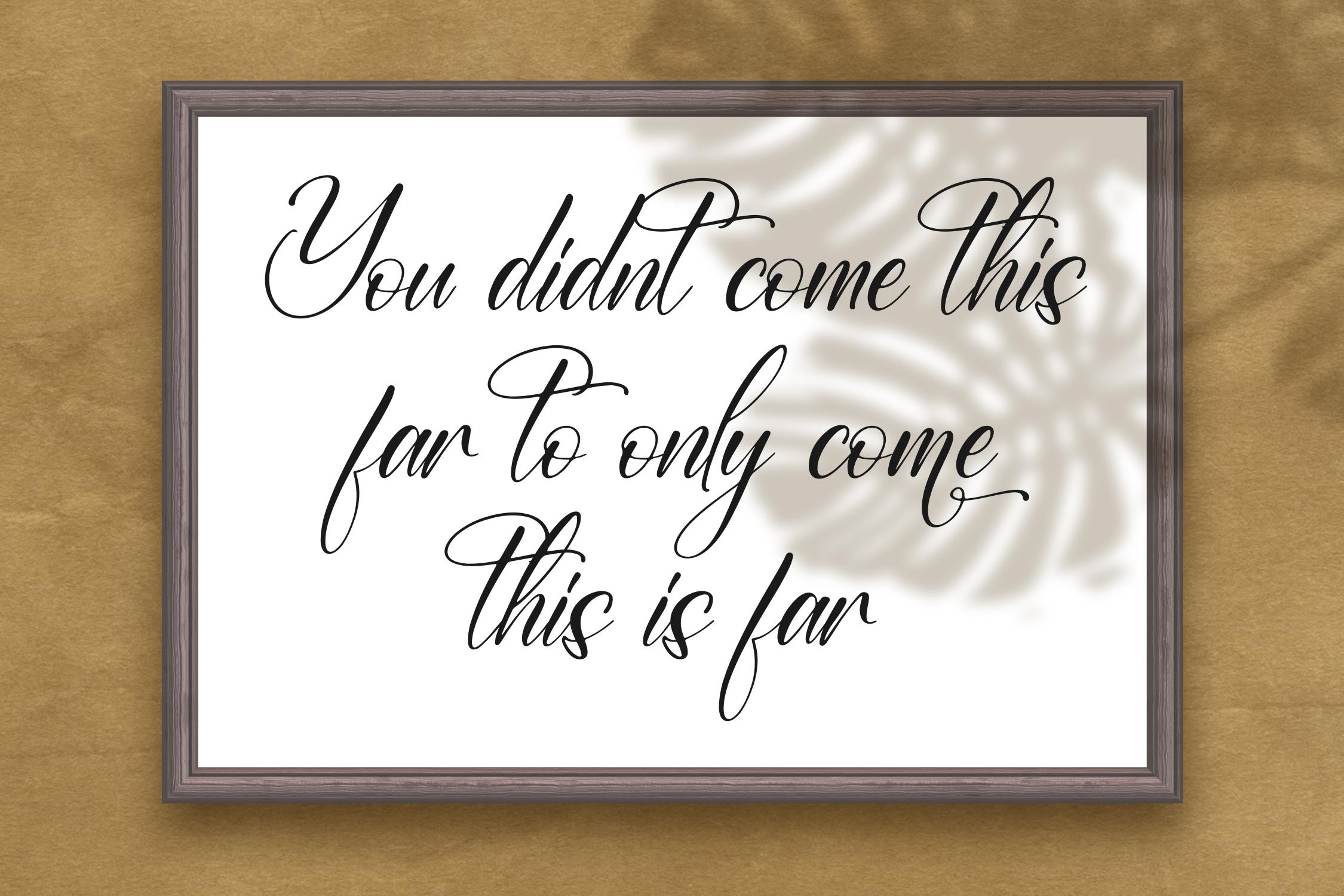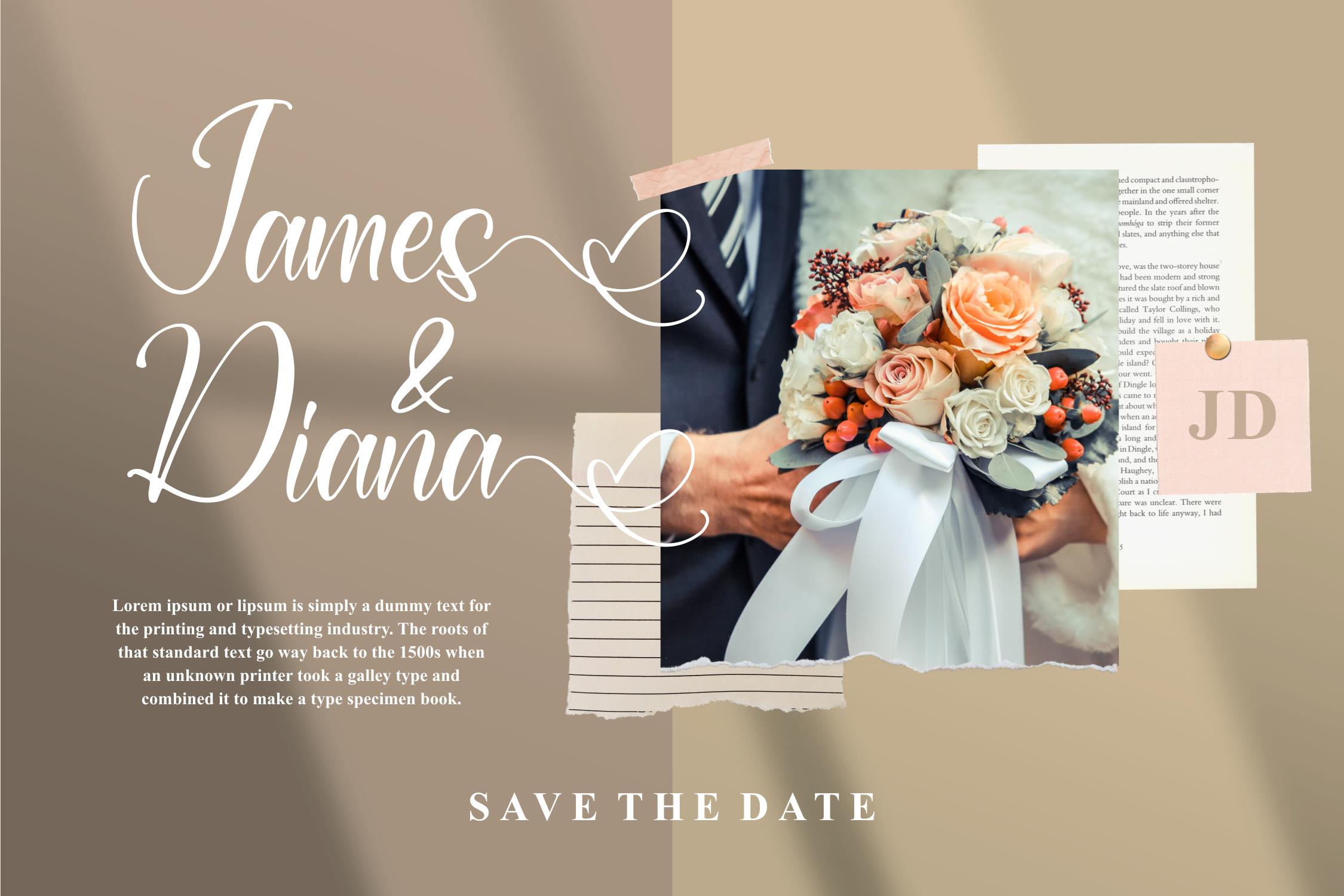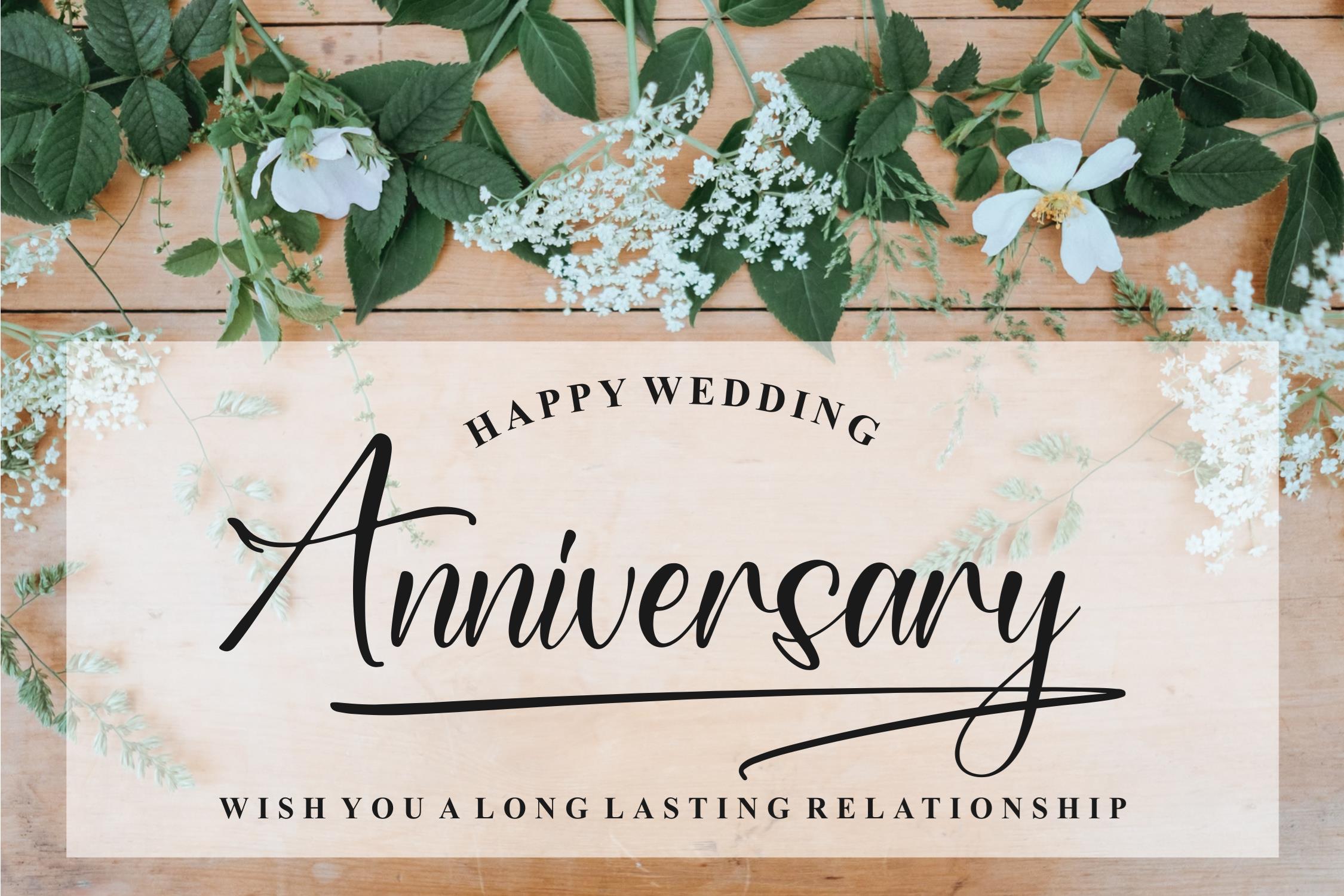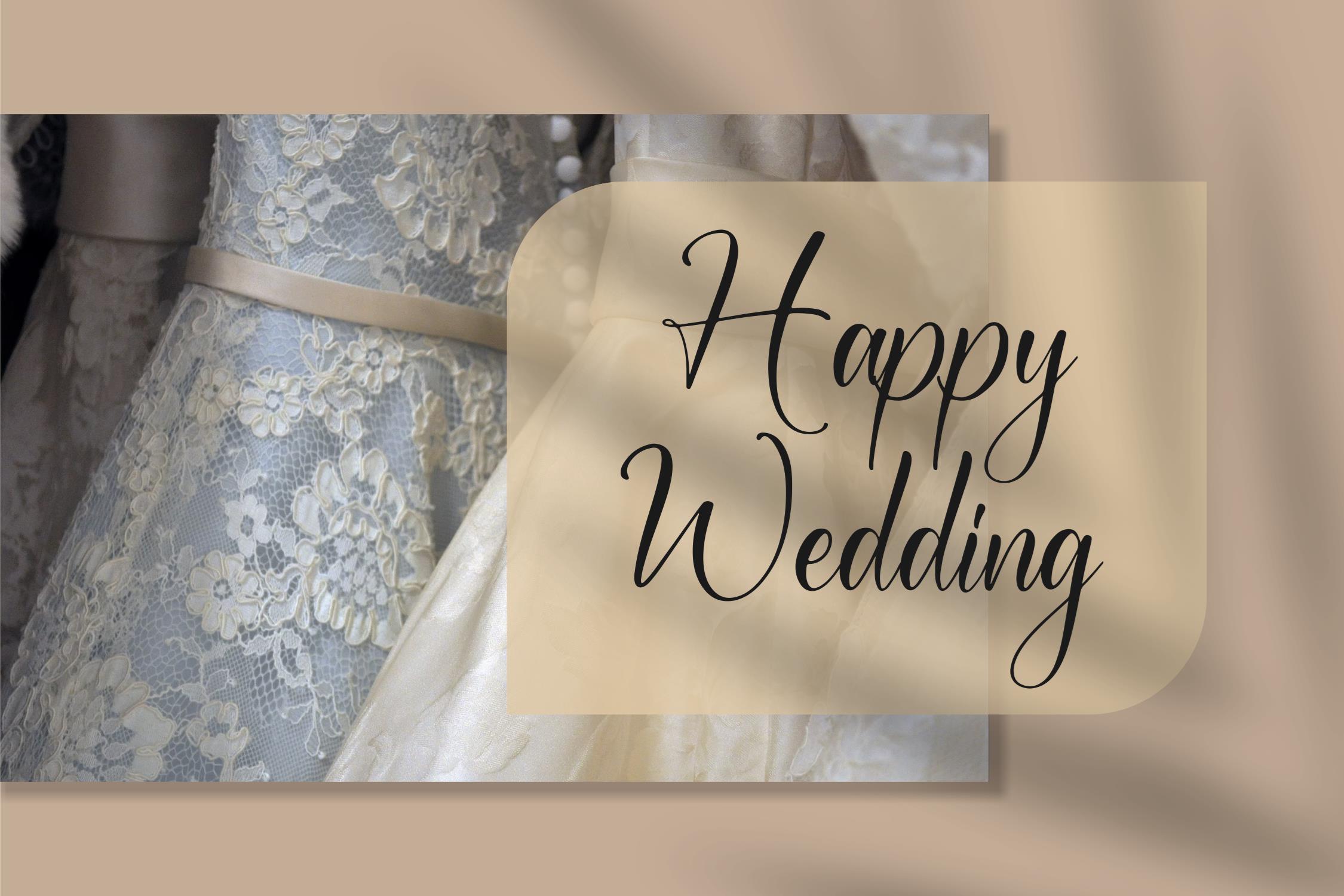
Rosemitta – Beautiful Script Font
Rosemitta – Beautiful Script Font , from Letterfabric Studio, is a suitable for any projects such as: logos, branding projects, homeware designs, product packaging, mugs, quotes, posters, shopping bags, t-shirts, book covers, name card, invitation cards, greeting cards, label, photography, watermark, special events, and all your other lovely projects that need a beautiful script taste.